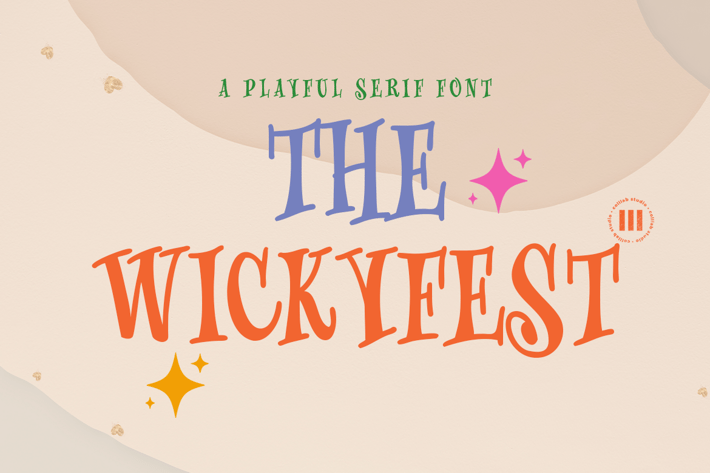
The Wickyfest - A Playful Serif Font
Your font is only as exciting as the words that you put into it. You want a playful serif font with a classic tone, something elegant and charming, but still lighthearted, fun, and cheerful with a dash of mischief?
Introducing The Wickyfest, a playful serif font with a classic tone.
If your next project requires a playful touch, you’ll love this collection of special characters and features. The Wickyfest style is incredibly well-crafted, with more than 200 glyphs and the versatility characters, it can present an adventurous display for your branding designs and ads. For more extravagant projects , try The Wickyfest for children-related graphics.